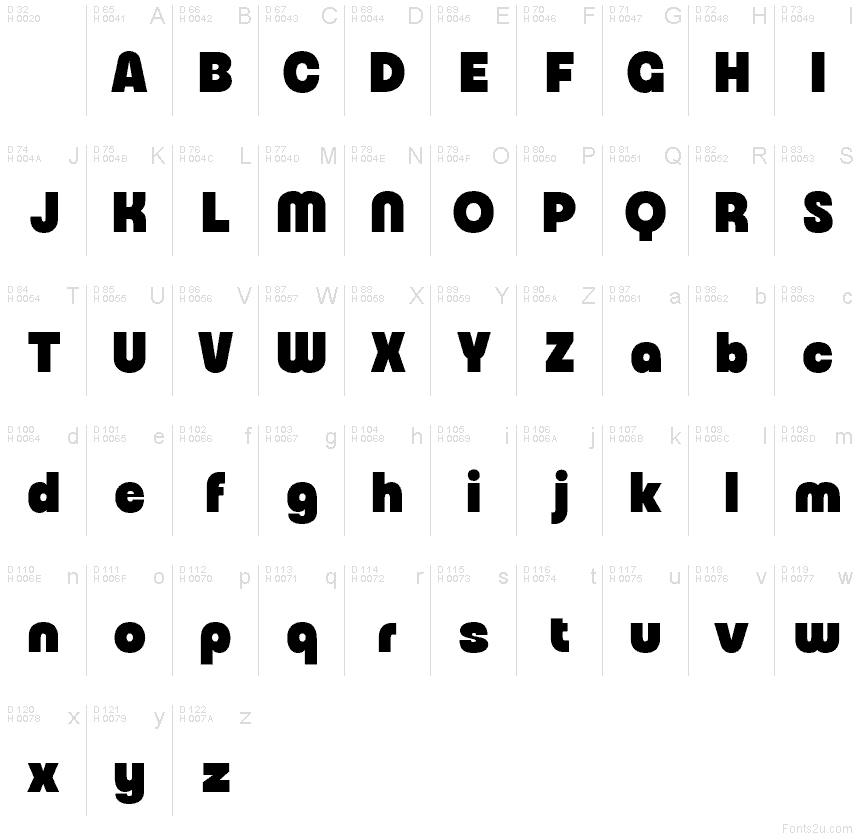
CS Qinetic Regular Demo
CS Qinetic font by Craft Supply Co. is a free bold rounded geometric display font. It stands out with pillowy, high-impact shapes and ultra-smooth curves that feel kinetic without getting messy. The keyhole-like Q and snug spacing create a steady pulse, so headlines thump with confidence while staying friendly and approachable.
Using CS Qinetic, you’ll get punchy logos, playful packaging, bright event posters, app splash screens, social banners, and bold stickers that read fast and look modern. This free font loves big sizes and slightly tight tracking; pair it with a clean grotesk or a light humanist sans for body copy to let the chunky forms do the talking.